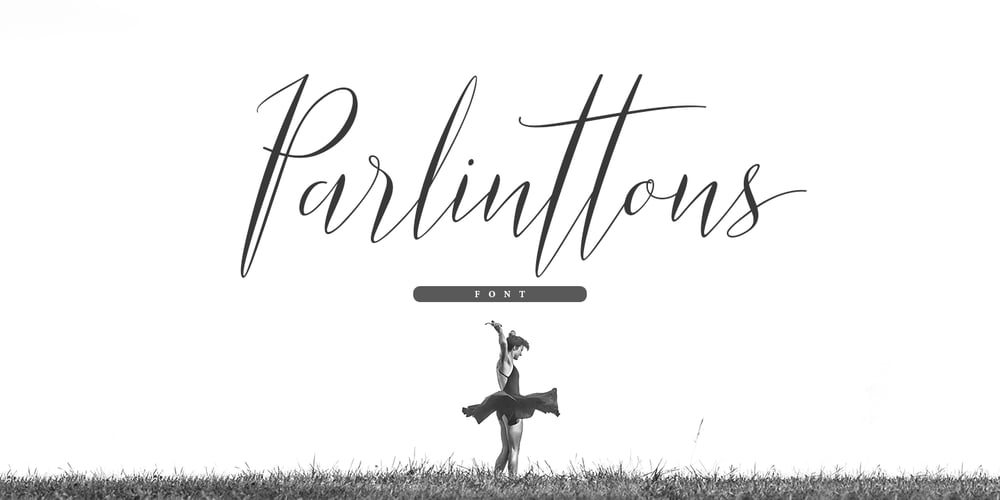
Parlinttons Script Font Family was designed by Juni Fadil Putra and published by FadeLine Studio. Parlinttons Script contains 1 styles and family package options. Parlinttons Script is a trendy, elegant, natural and thin font. It is suitable for use in various design styles such as watercolors, minimalism, flat, modern designs, classic designs, and more.